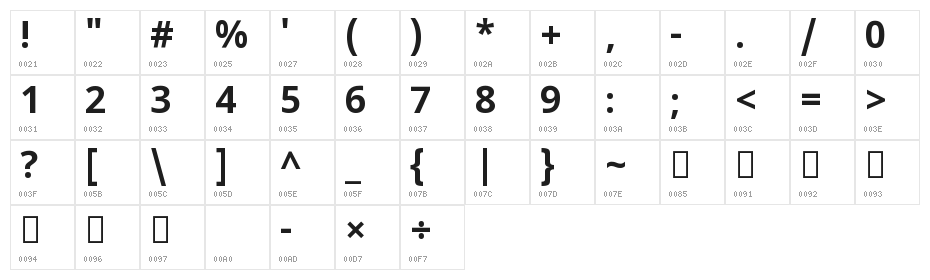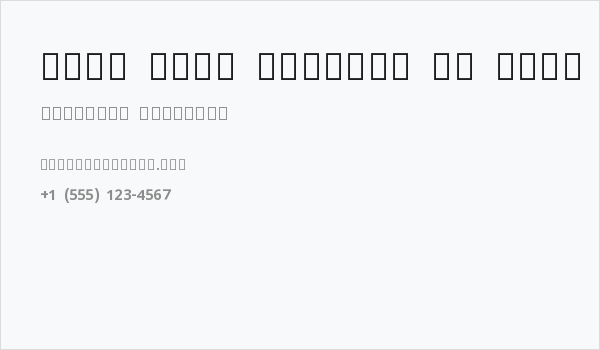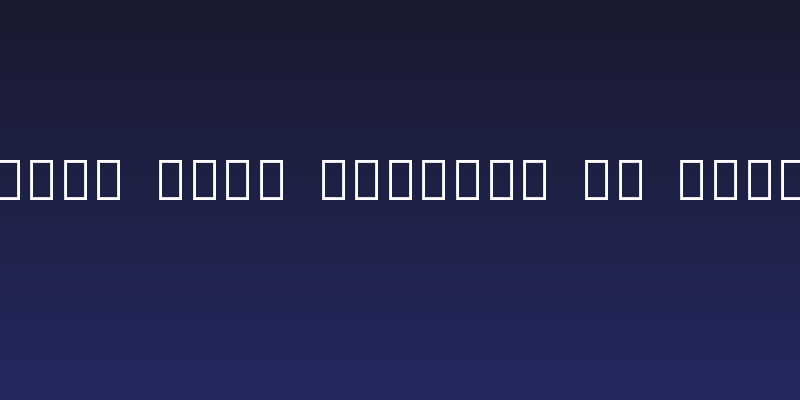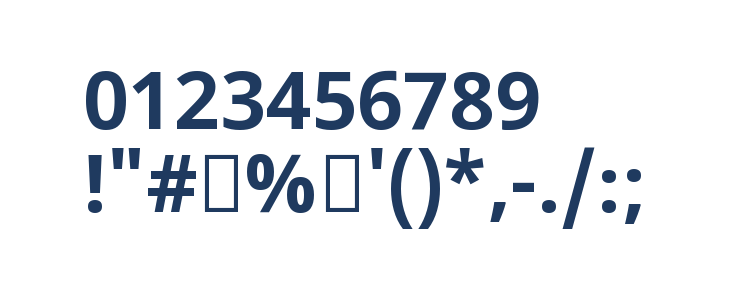
Noto Sans Sinhala UI Bold Font
Noto Sans Sinhala UI Bold Description
This font is a bold, sans-serif typeface designed for clear readability and modern aesthetics. Its characters are well-defined with a uniform stroke width, providing a clean and professional appearance. The numerals and special characters are crafted to match the boldness of the letters, ensuring consistency across all elements. The font is suitable for digital interfaces, offering excellent legibility at various sizes. Its straightforward design makes it versatile for a range of applications, from user interfaces to print media.